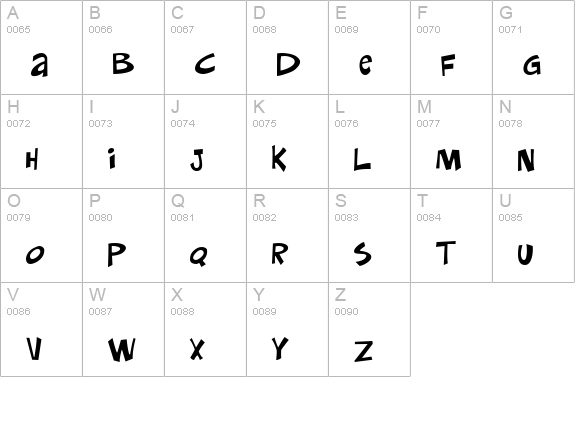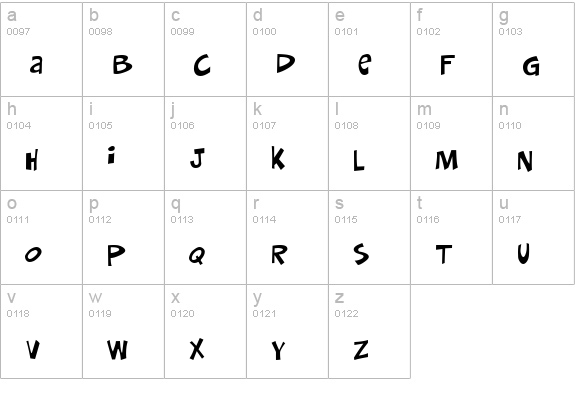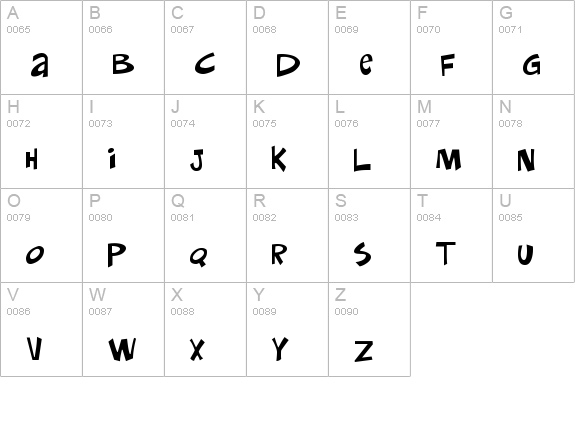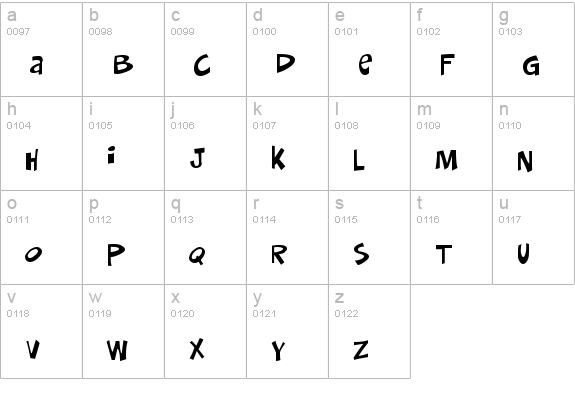
DenneyTwo Font Details
DenneyTwo font is a charming and versatile typeface that combines modern elegance with a touch of playfulness. With its clean lines and unique letter shapes, DenneyTwo adds a sophisticated yet friendly feel to any design project. This font is perfect for a wide range of applications, from branding to packaging to social media graphics. The best part about DenneyTwo font is that it is completely free to download at FontsMarket.com. Whether you're a graphic designer looking to add a fresh twist to your work or a small business owner in need of a standout logo, DenneyTwo font offers endless creative possibilities without any cost. Don't miss out on this fantastic opportunity to elevate your designs with this stylish and accessible typeface.